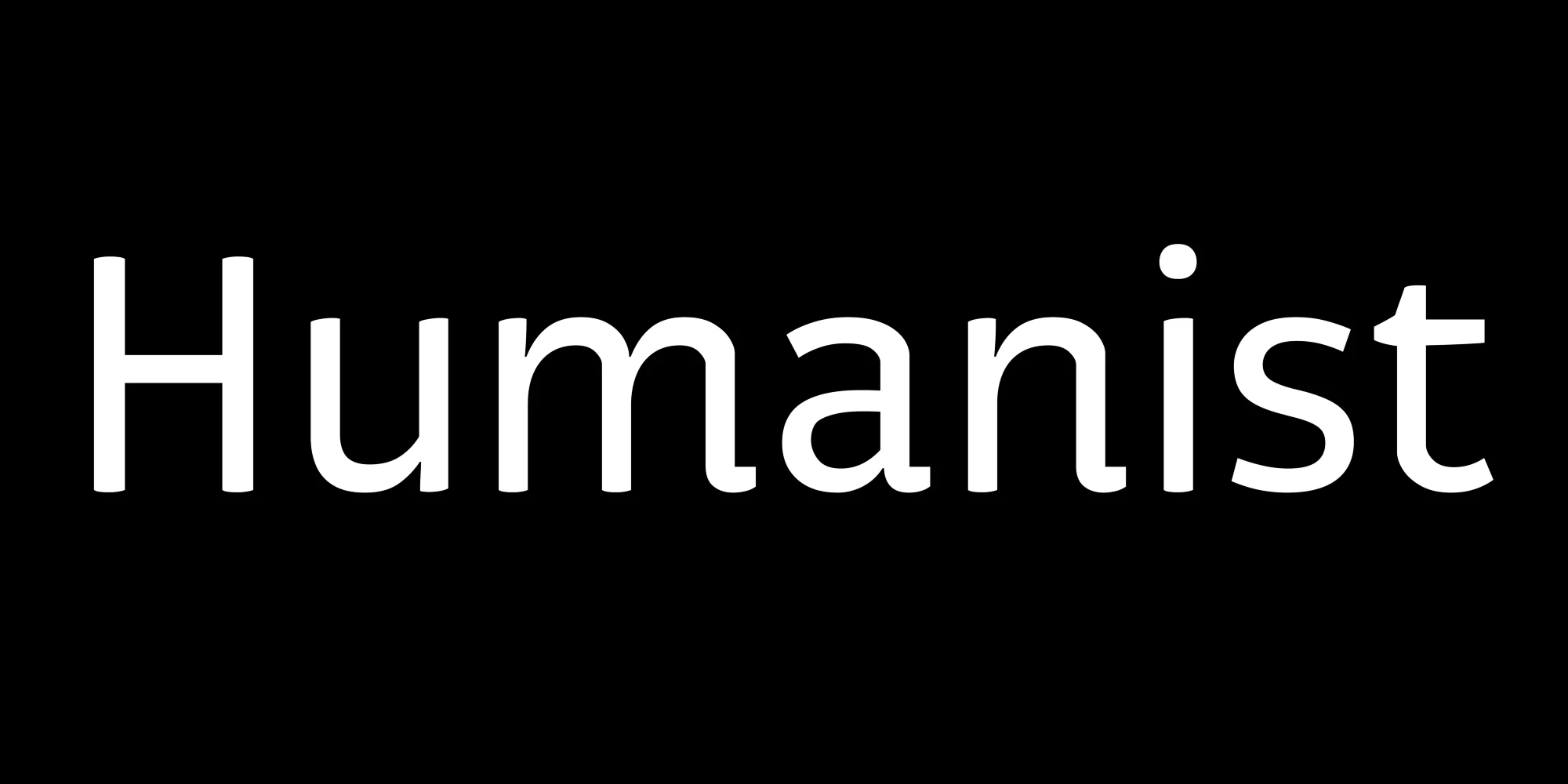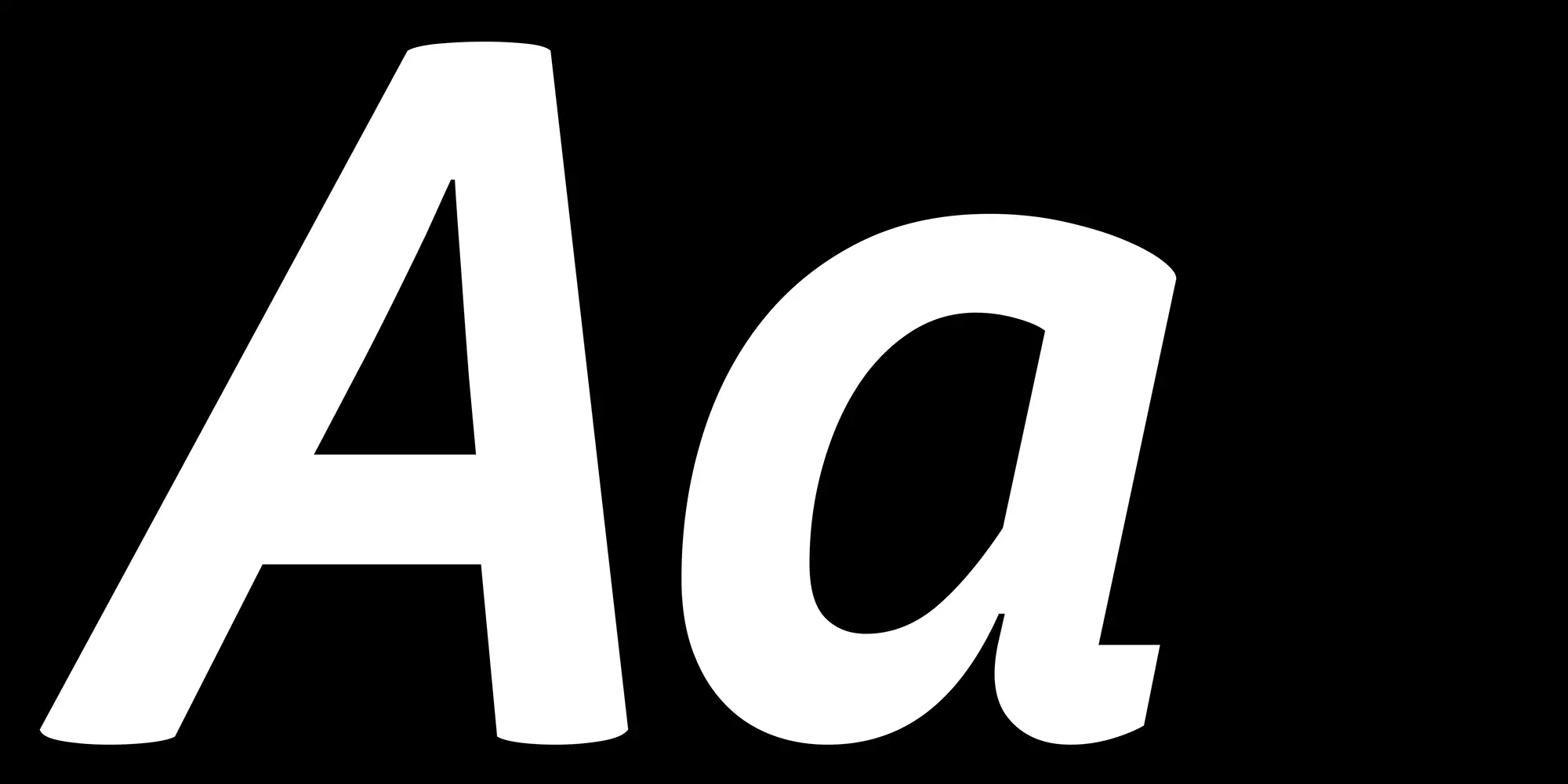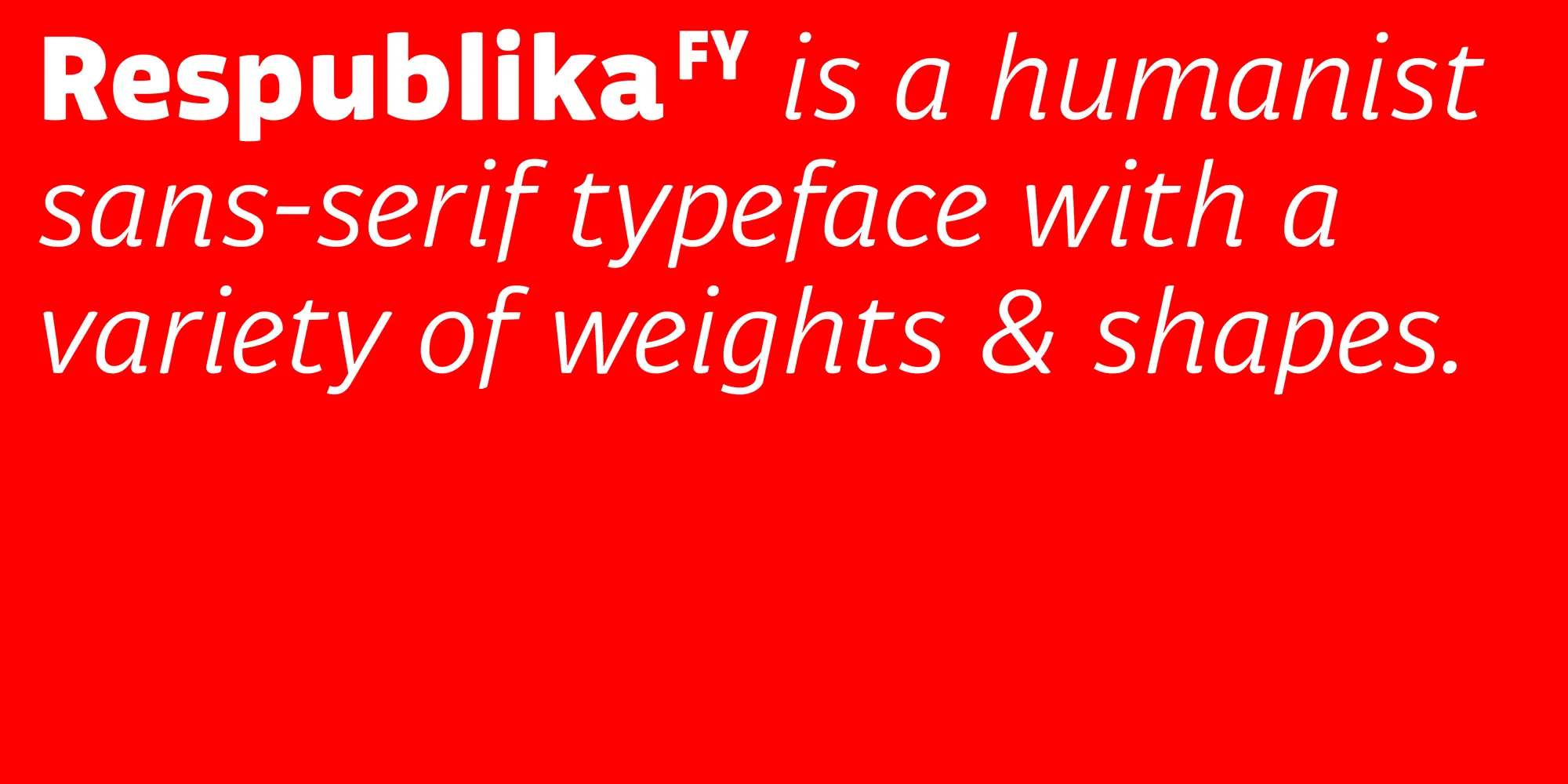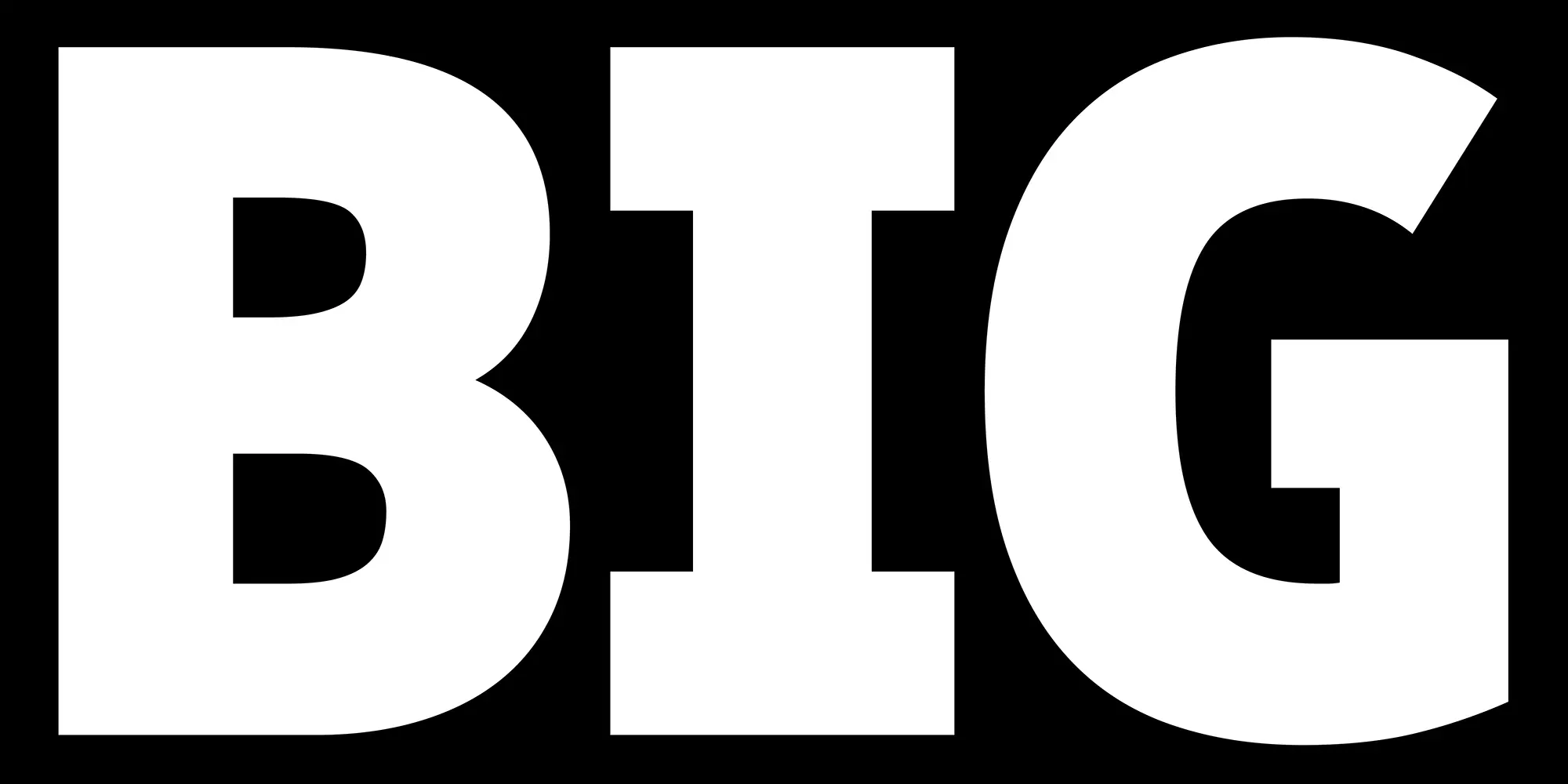
Respublika Font Family
Respublika FY is a versatile humanist sans serif font family. Combining readability with a modern aesthetic, it performs well in both text and display settings. The features included provide the toolkit to create layouts with typographic diversity, whether for magazines, books, websites, or bulletins. Available from Light to Black with matching italics or as two variable fonts, it gives designers thorough control and flexibility across diverse applications.
Designed by
Black Foundry Designers
Features
OpenType Features
- Common Ligatures
- Fractions
- Lining Numerals
- Old Style Numerals
- Ordinal Numerals
- Proportional Numerals
- Stylistic Sets
- Subscript
- Superscript
- Tabular Numerals